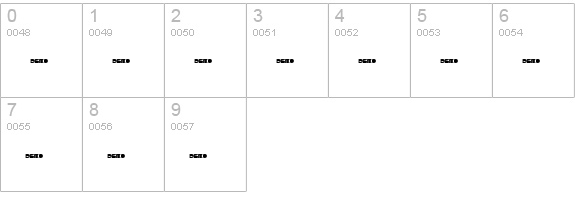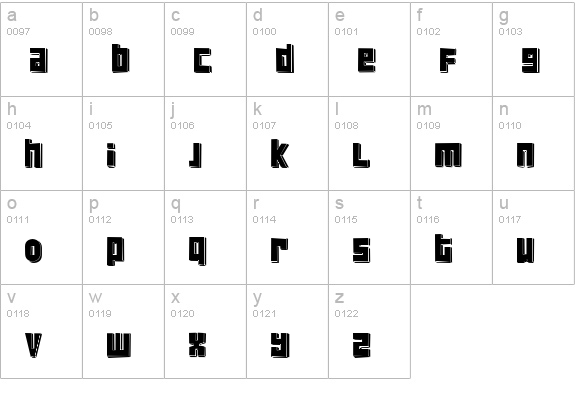
FT ScandinavianTitan Black is a maximum-weight, dramatic variant in the FT typeface family \xE2\x80\x94 well suited to maximum-impact headlines, posters, and packaging.
FT ScandinavianTitan Black font is a sleek and modern typeface that exudes sophistication and elegance. Its bold and clean lines make it perfect for a variety of design projects, from logos to headlines to branding materials. The font's strong presence on the page commands attention and conveys a sense of authority and professionalism. This versatile font is ideal for both print and digital applications, and its timeless aesthetic ensures that it will remain relevant for years to come. Whether you're working on a corporate identity, a magazine layout, or a website design, FT ScandinavianTitan Black font will help you achieve a polished and impactful look. Best of all, FT ScandinavianTitan Black font is available for free download at FontsMarket.com. This means that you can start using this stunning typeface in your projects right away, without having to worry about any additional costs. Don't miss out on the opportunity to elevate your designs with this beautiful and versatile font - download FT ScandinavianTitan Black today!